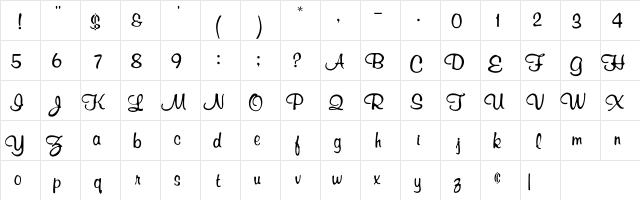
RichardMurray Regular Free Font
RichardMurray Regular
Design Context for RichardMurray
RichardMurray is a composed and adaptable typeface that performs quietly and consistently across a wide range of design contexts.
Pro Tip: Use RichardMurray in both headline and body roles to test its range before committing to a single application.